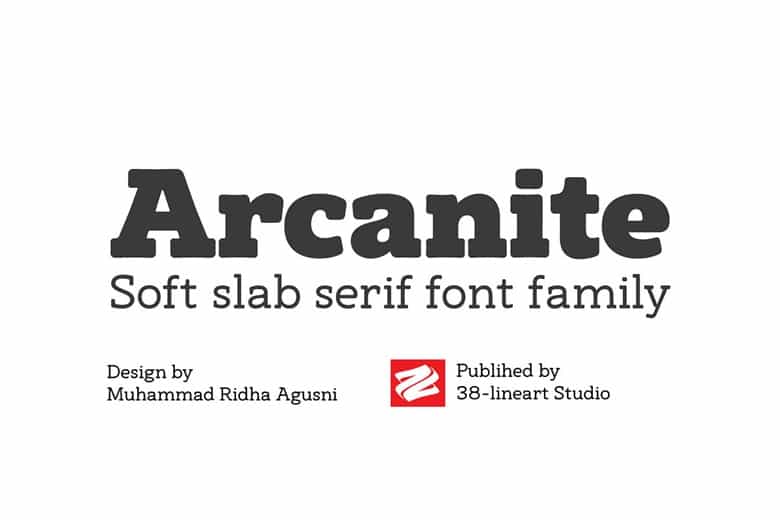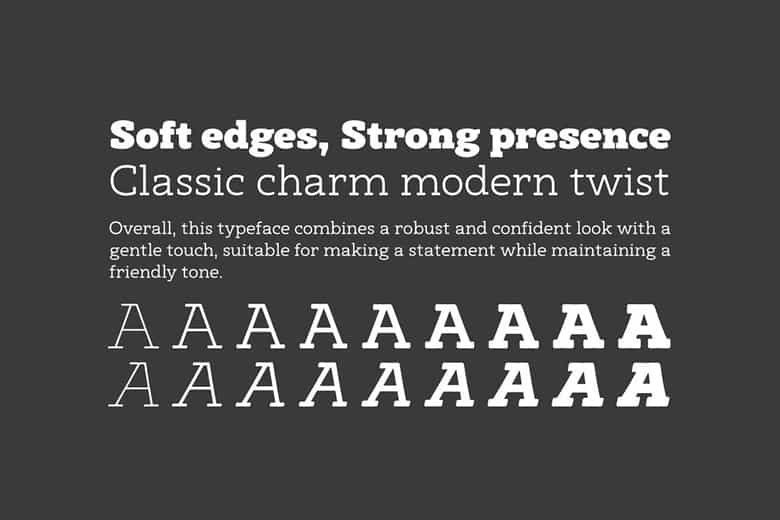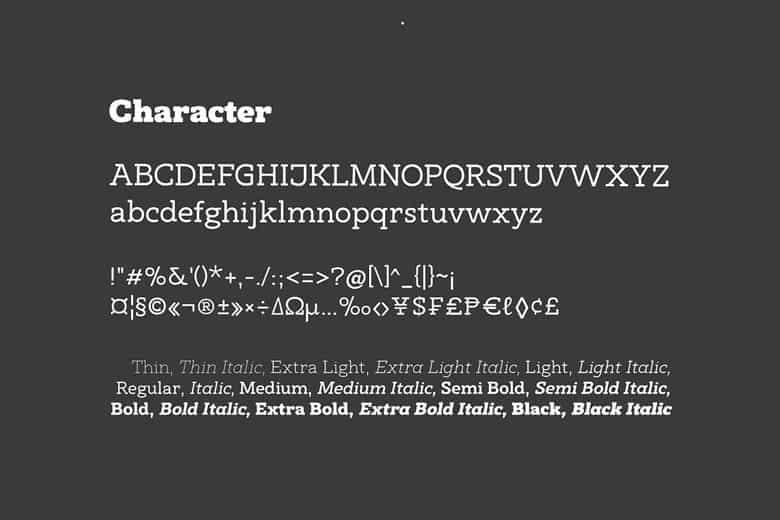
Arcanite is a highly stylized slab serif font family that combines bold slab serifs and smooth, delicate corners suitable for text, as well as display.. Arcanite comes with 18 fonts distributed in 9 weights with both regular and italic styles, thus suitable for use in headlines and text. New features are its soft slab serifs, versatility for use in editorial design, branding and identities, and a large type library to offer a wide range of typography.